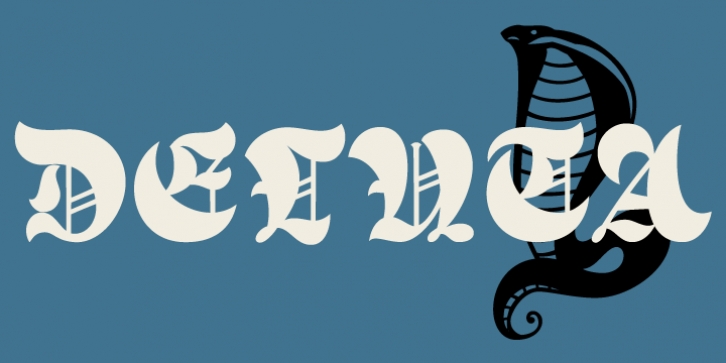
Deluta downloadDesigner: Ryoichi Tsunekawa
Publisher: Flat-it
You can not find such a lovely, unique and funny blackletter. Enjoy and have fun with this font.